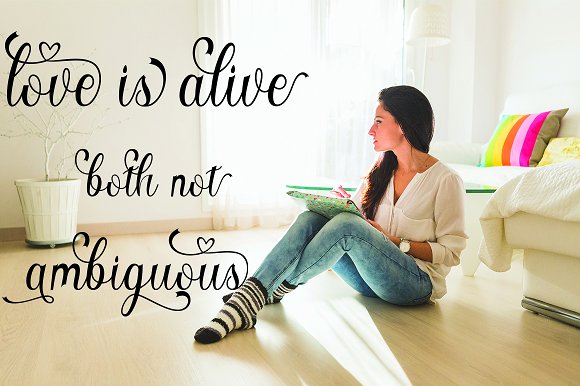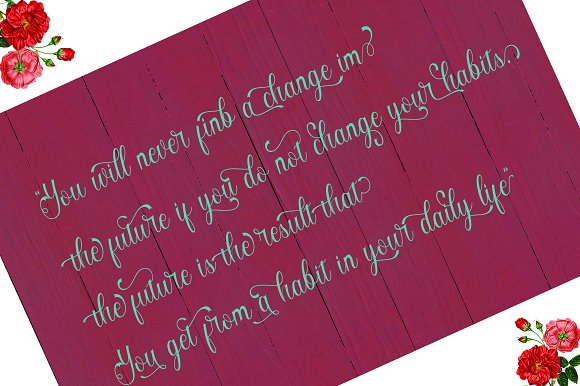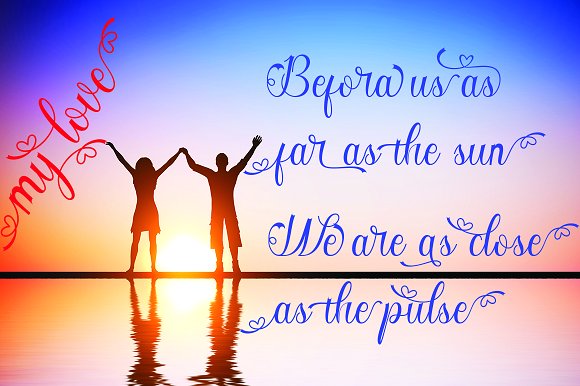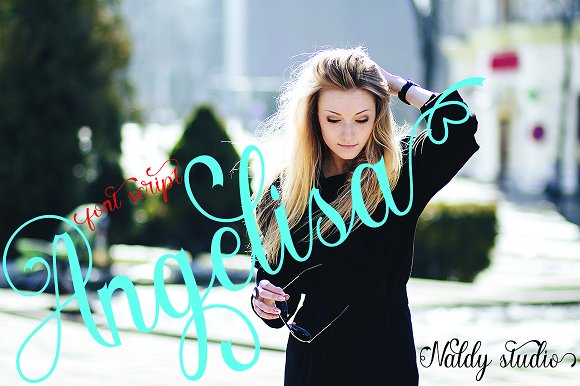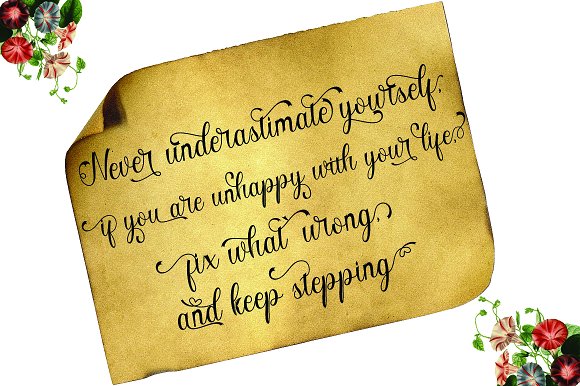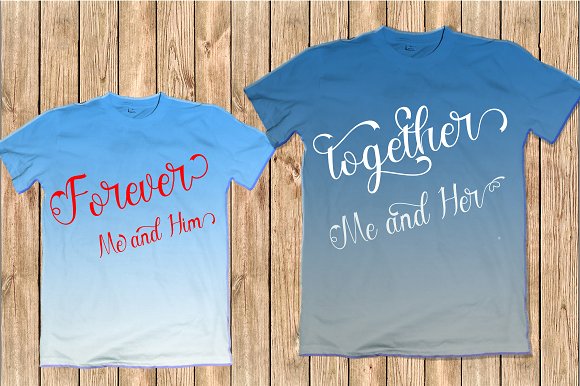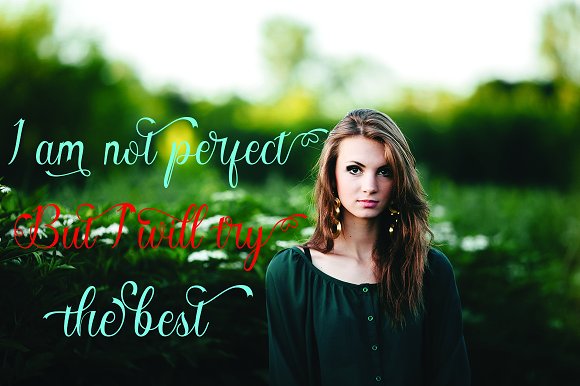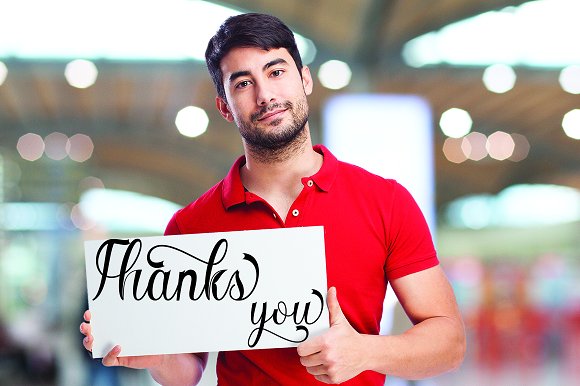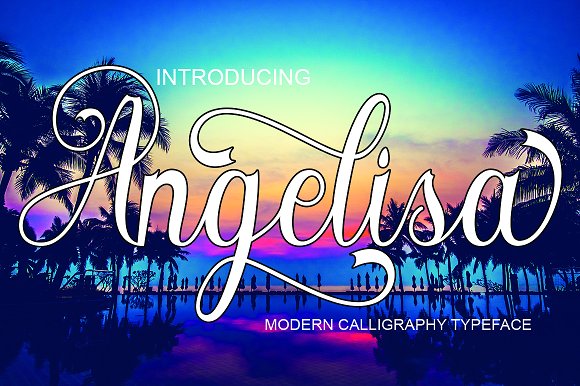
Angelisa Font
Angelisa Script.Angelisa Script is a stylish calligraphy font that features a varying baseline, smooth line, classic and elegant touch. Can be used for various purposes.such as headings, signature, logos, wedding invitation, t-shirt, letterhead, signage, lable, news, posters, badges etc.The Features of this fonts is: